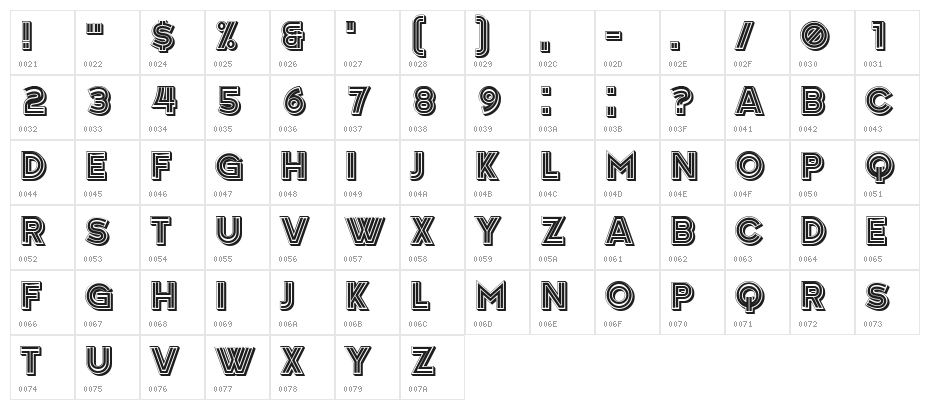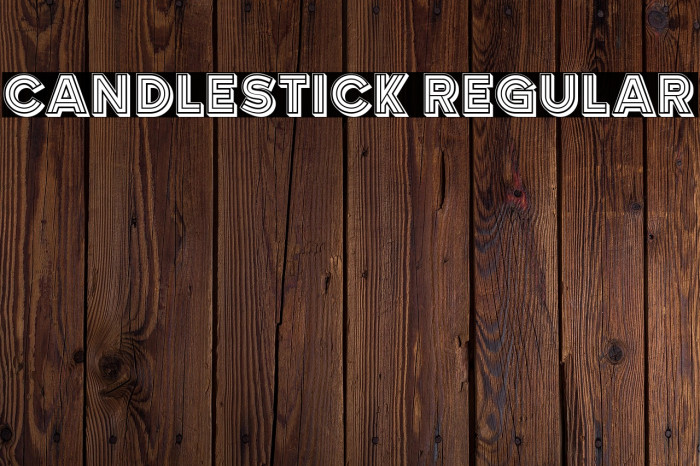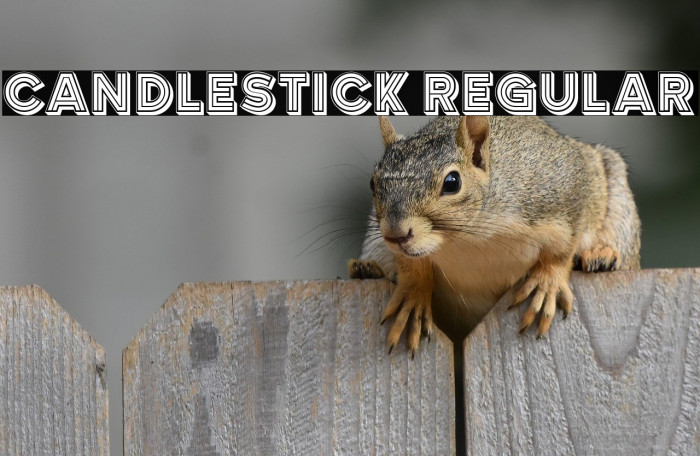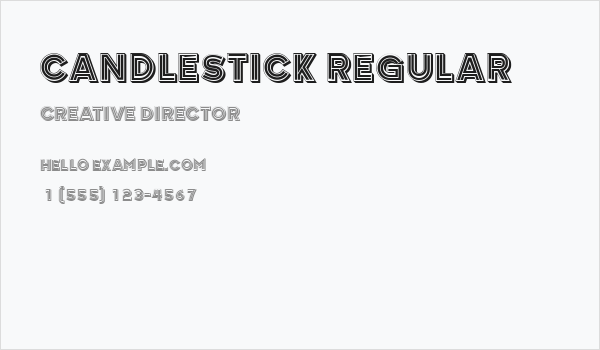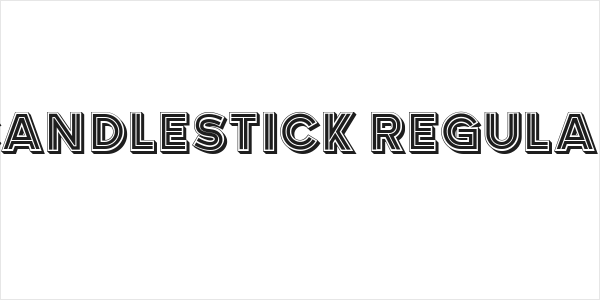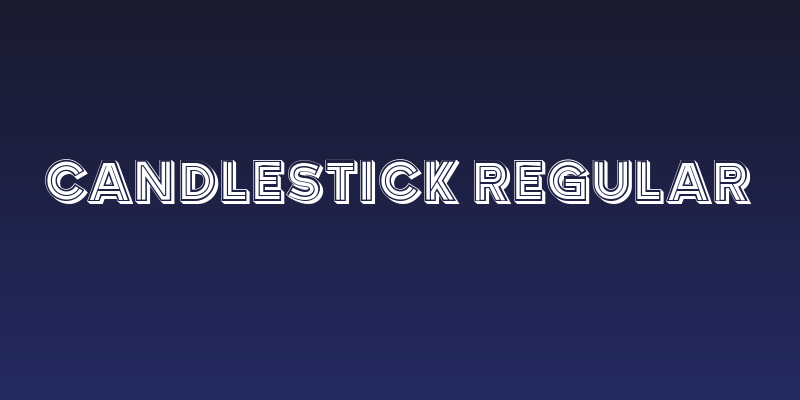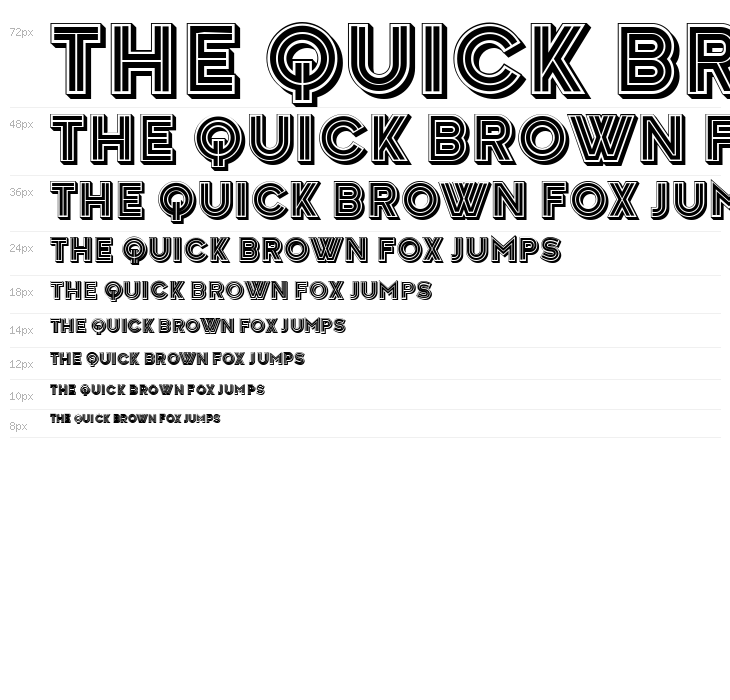
Candlestick Regular Font
Candlestick Regular Description
This font features a bold, geometric design with a distinct double-line outline that creates a striking visual effect. The characters are uppercase and maintain a consistent width, giving them a uniform appearance. The style is reminiscent of Art Deco, with clean lines and a structured form that exudes a sense of modernity and sophistication. The numbers and special characters follow the same design principles, ensuring a cohesive look across all elements. The font's boldness and unique outline make it ideal for attention-grabbing headlines and display purposes.
Proposed ProjectsIdeal for posters, branding, signage, and any project requiring a bold, modern aesthetic.